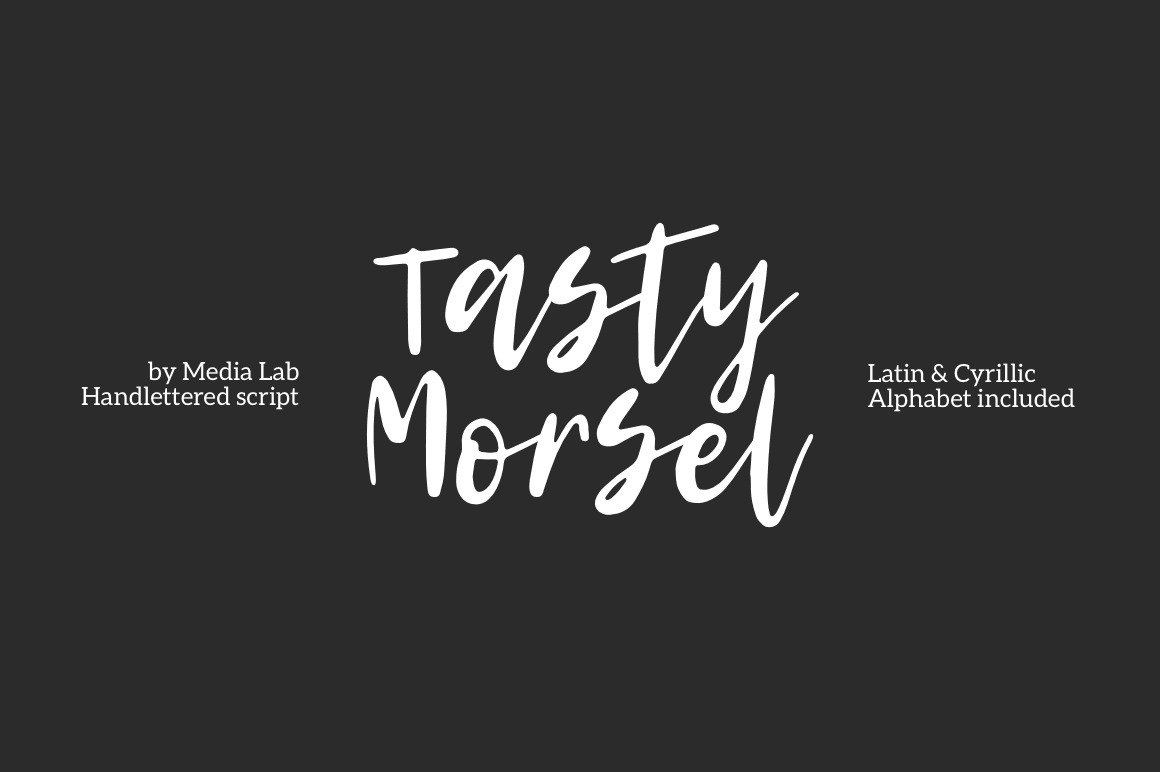
Tasty Morsel Script Font
Tasty Morsel Script Font is perfect for gourmet restaurant branding, artisan food packaging, culinary blog headers, specialty delicatessen signage, food truck graphics, catering service logos, cookbook covers, and epicurean lifestyle marketing.
What makes Tasty Morsel Script Font exciting is its delicious elegance that captures the artisanal passion and culinary sophistication of fine dining and gourmet food culture. The font features flowing letterforms with appetizing curves and handcrafted character variations that evoke chef's handwriting, recipe cards, and the personal touch of artisanal cooking. Its distinctive culinary styling and gastronomic appeal communicate quality, craftsmanship, and epicurean expertise, making every message feel seasoned with culinary passion and garnished with gourmet sophistication.
The Tasty Morsel Script Font family includes regular weight with uppercase and lowercase letters, numerals, punctuation marks, and special characters. Premium versions often feature stylistic alternates and culinary-inspired flourishes that enhance the gourmet, artisanal aesthetic perfect for food industry applications.
This appetizing script typeface brings instant culinary credibility and artisanal charm to any food-related project. Tasty Morsel Script Font Free Download delivers exceptional results for businesses in the culinary industry seeking to communicate passion, craftsmanship, and gourmet quality to food enthusiasts and discerning diners.
The artisanal character of Tasty Morsel Script Font makes it particularly valuable for farm-to-table restaurants, specialty food producers, and culinary education centers. Its excellent readability ensures menu descriptions and ingredient lists remain clear while maintaining the distinctive gourmet aesthetic that appeals to customers seeking authentic culinary experiences and artisanal food quality.
Culinary marketers and food industry professionals appreciate how Tasty Morsel Script Font effortlessly conveys gastronomic passion and artisanal authenticity. The font's handcrafted proportions and culinary details create appetizing brand materials that establish connections with audiences who value quality ingredients, traditional cooking methods, and exceptional dining experiences.
The versatile culinary appeal of this typeface extends to wine marketing, cooking schools, and gourmet gift companies where artisanal authenticity enhances brand perception. Tasty Morsel Script Font Free Download provides creative professionals with a valuable tool for developing memorable, flavor-rich designs that resonate with audiences who embrace culinary excellence, artisanal craftsmanship, and the delicious artistry of gourmet food culture in their dining and lifestyle experiences.